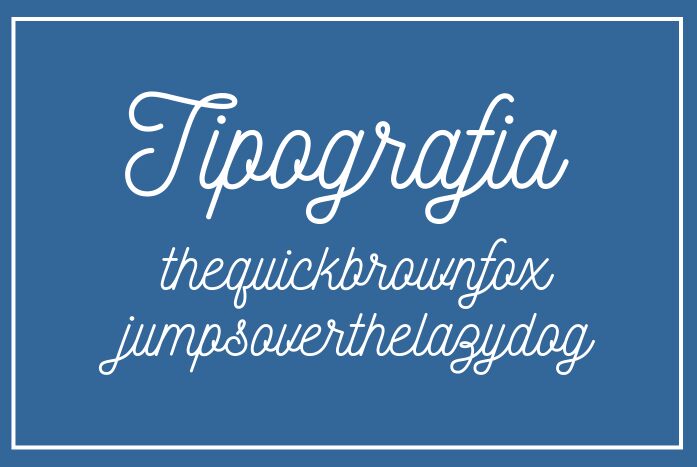
Nickainley is a captivating monoline script font that exudes a timeless, vintage charm. Crafted by Seniors Studio, this light and elegant calligraphy-inspired typeface boasts a harmonious blend of classic and contemporary elements. The uppercase and lowercase characters, along with the accompanying numerals and punctuation, seamlessly flow together, creating a visually striking and cohesive aesthetic.
Nickainley's versatility shines through, making it a versatile choice for a wide range of design applications. From logos and badges to wedding invitations, t-shirts, and signage, this font effortlessly elevates any project with its refined yet playful personality. Its distinctive style and attention to detail make Nickainley an excellent option for those seeking to infuse their designs with a touch of timeless sophistication.